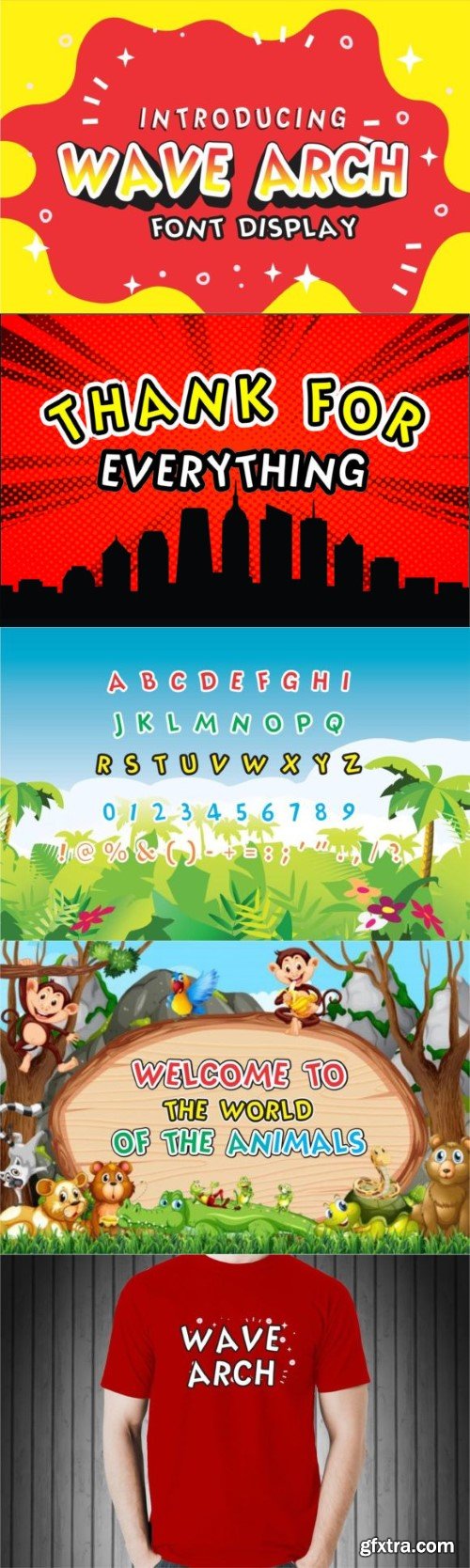
wave arch font
Wave Arch is a cool, fun display font with slightly curved letters. Add confidence to your favorite creations and let yourself be amazed by the results. This font is suitable for all digital media.